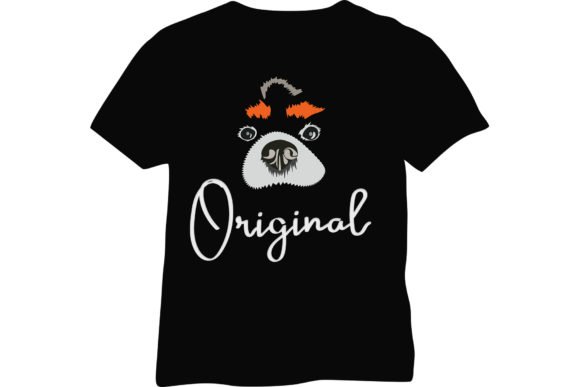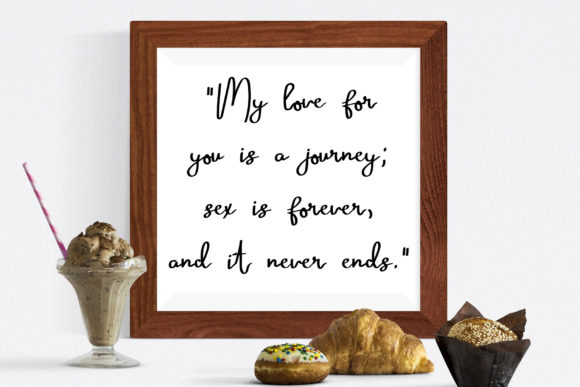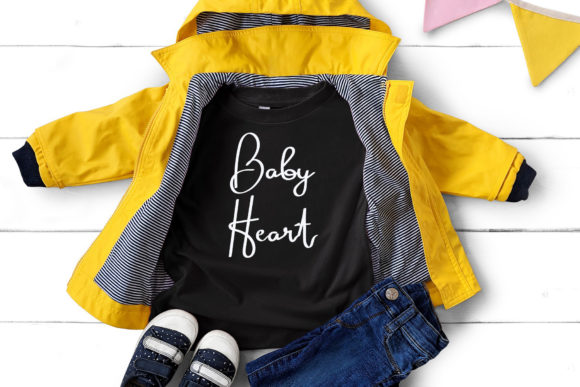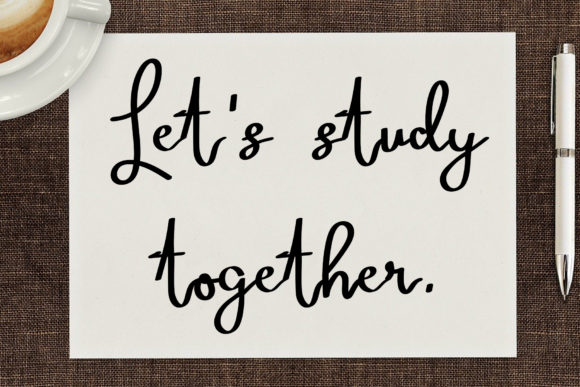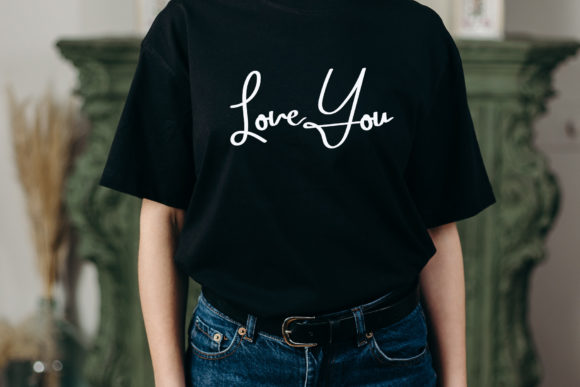
Yolanda Font
About Yolanda Font
Yolanda is a sweet and cursive handwritten font. This gentle font will look gorgeous on a variety of design ideas. It will add a joyful and romantic touch to each of your projects!